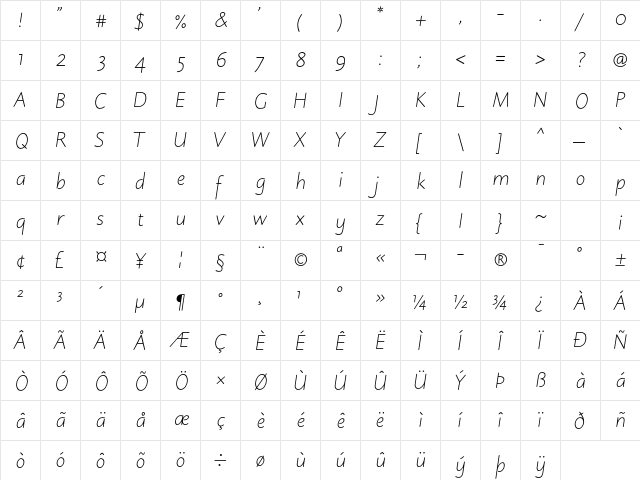
Julius Primary Std Light It
Design Context for Julius Primary Std Typeface
Julius Primary Std offers clean, dependable letterforms without strong stylistic allegiance, making it a practical choice for designers who need flexibility. Its slender proportions lend an understated elegance to any composition.